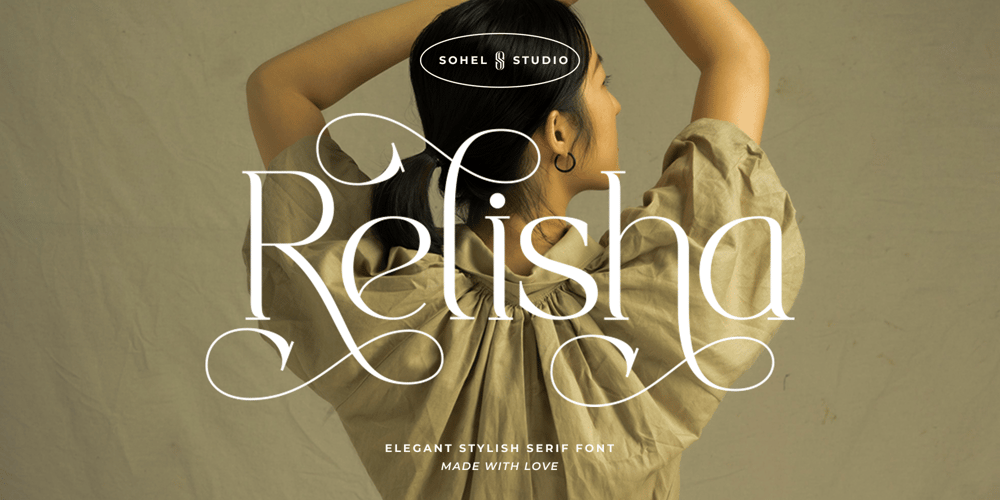
Relisha
Relisha font
Relisha Font Family was designed by Akhmad Husain Rifa’i and published by Sohel Studio. Relisha contains 1 styles and family package options. Relisha – is a Modern Elegant Serif typeface with Unique alternative , multilingual support with perfect kerning. This typeface is perfect for an elegant & luxury logo , classy editorial design, women’s magazine, fashion brand , cosmetic brand, fashion promotion , modern advertising design, invitation card, art quote, home decoration , book/cover titles, special events, Tote bag, T-shirt, Advertising and much more.